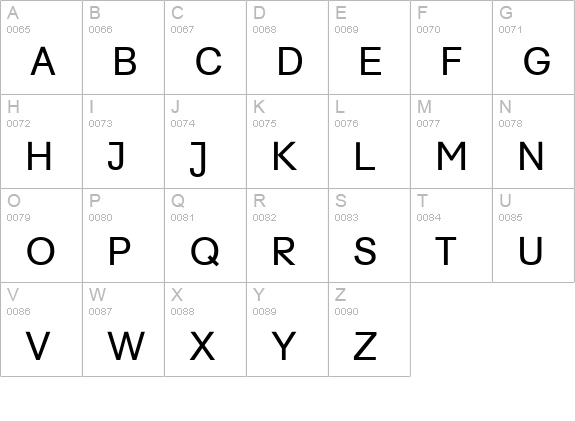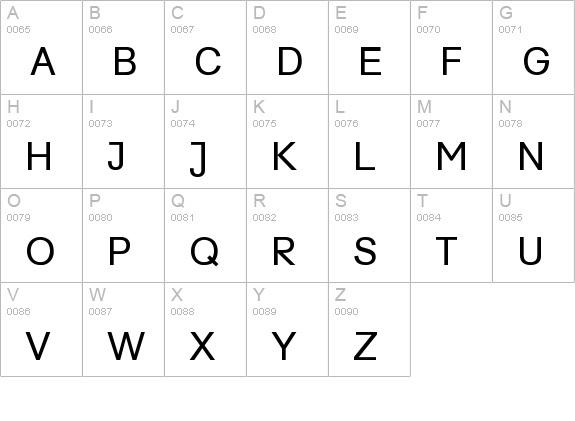
Akzidenz-Grotesk (R) Schulbuch Regular Font Details
Akzidenz-Grotesk (R) Schulbuch Regular is the standard, neutral variant in the Akzidenz typeface family \xE2\x80\x94 well suited to general body text, paragraphs, and standard typographic work.
Akzidenz-Grotesk Schulbuch Regular font is a timeless classic that exudes simplicity and elegance. With its clean lines and versatile design, this typeface is perfect for a wide range of projects, from editorial layouts to branding and signage. The Schulbuch Regular variant offers a balanced and legible appearance, making it ideal for body text and longer passages of content. What sets Akzidenz-Grotesk Schulbuch Regular font apart is its accessibility and ease of use. Whether you are a seasoned designer or a beginner, this font is a reliable choice that will elevate your designs. Best of all, it is available for free download at FontsMarket.com, making it easily accessible to anyone looking to add a touch of sophistication to their projects. Don't miss out on the opportunity to enhance your work with the timeless elegance of Akzidenz-Grotesk Schulbuch Regular font.